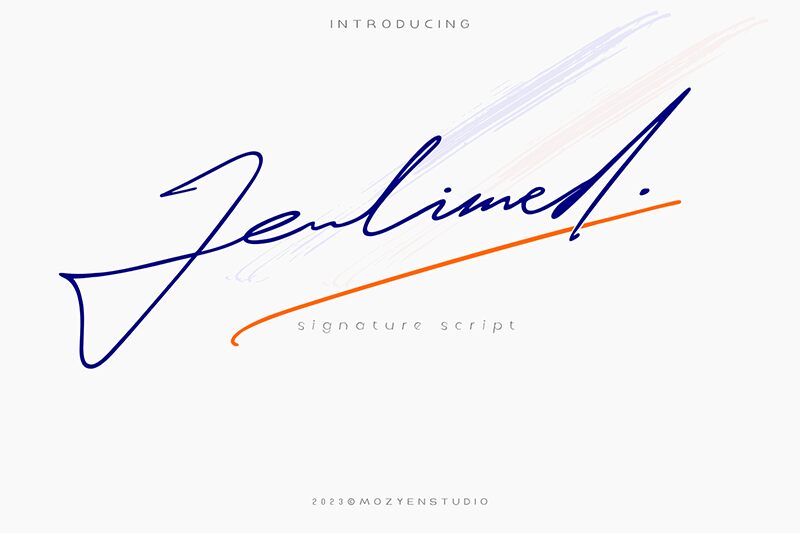
Jeulimed
Jeulimed font by Mozyen Studio is a free handwritten font that captures the essence of elegance and sophistication. It features a signature style with artistic, flowing letters and clean curves. Jeulimed creates an expressive design that gives a personal touch to each phrase, presenting itself as a fitting choice for projects that seek authenticity.
Use Jeulimed font to create branding designs, display ads, websites designs and homepages, startup posters, resumes and portfolios, textbook covers and stationery items like business cards with today’s featured resource.